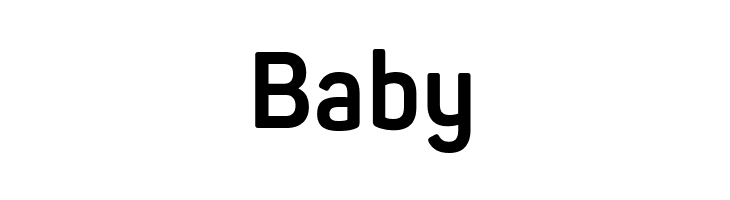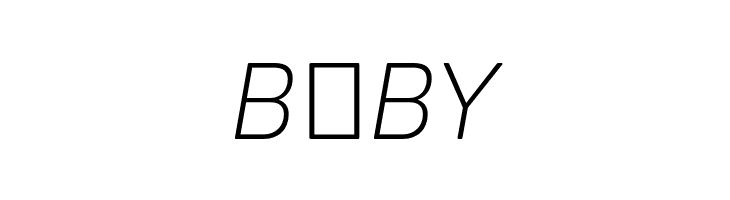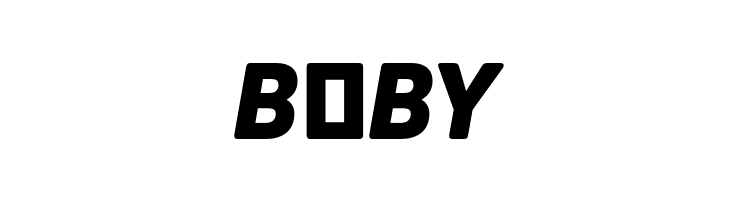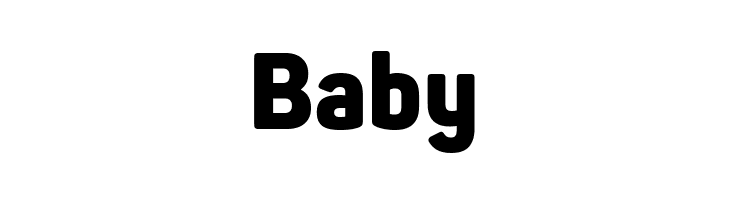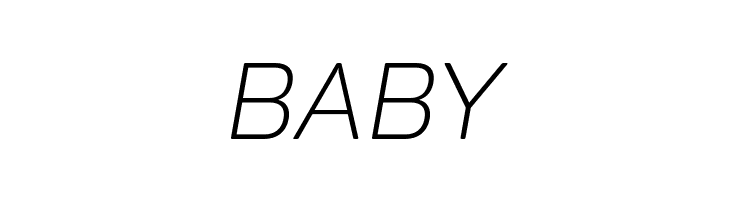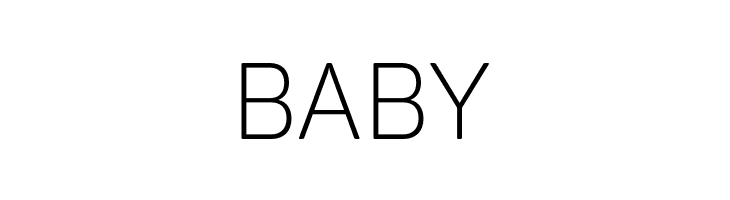
A bold, modern sans-serif font with thick, uniform strokes.
A clean, modern sans-serif font with a light weight and geometric design.
A sleek, modern, light italic font with balanced spacing and smooth strokes.
Bold, italic, and narrow font with a modern, dynamic style.
A modern, narrow sans-serif font with a clean and elegant design.
A sleek, narrow, and light italic font with a modern and elegant style.
A bold, modern font with narrow width and consistent stroke weight, perfect for impactful headlines.
A bold, narrow, and italicized font with a modern and dynamic style.
A modern, bold, narrow sans-serif font with rounded edges.
A modern, narrow, bold italic font with clean lines and a dynamic style.